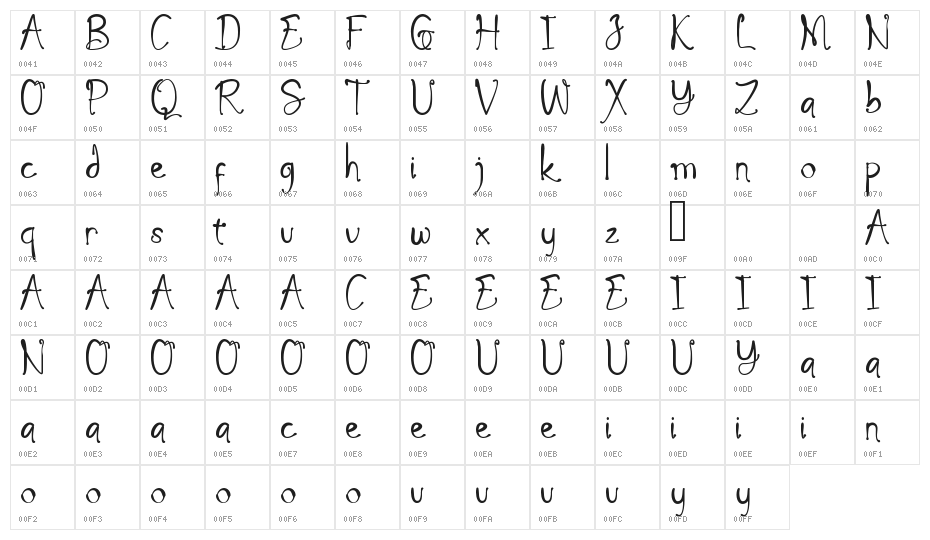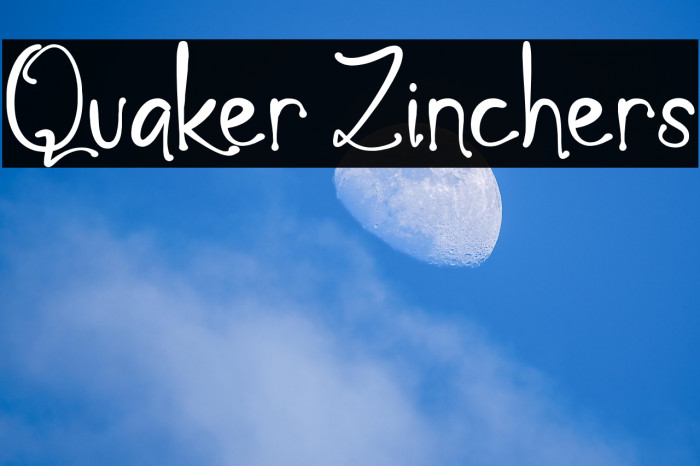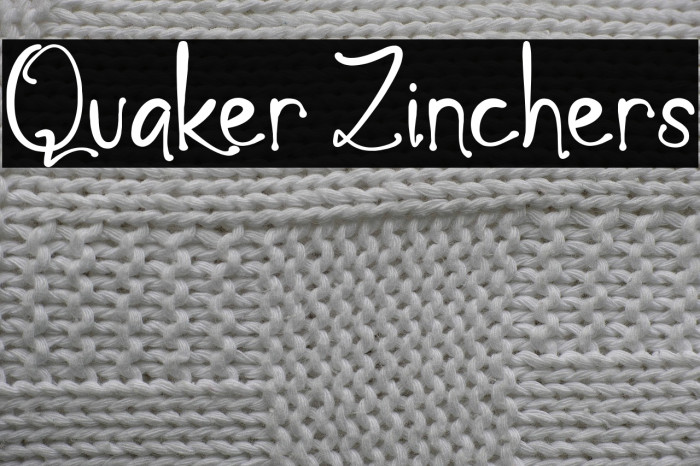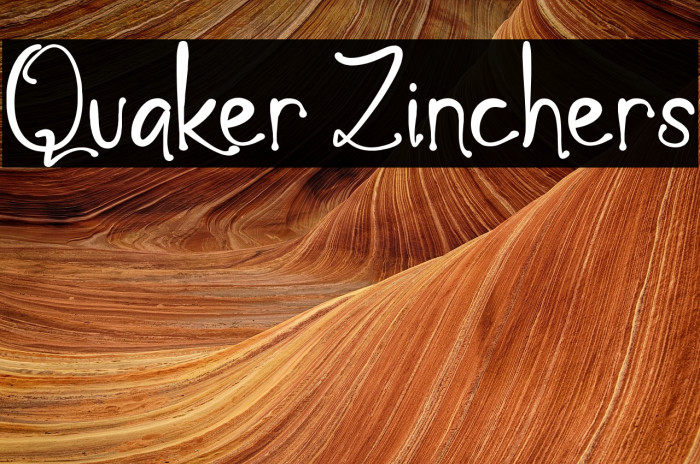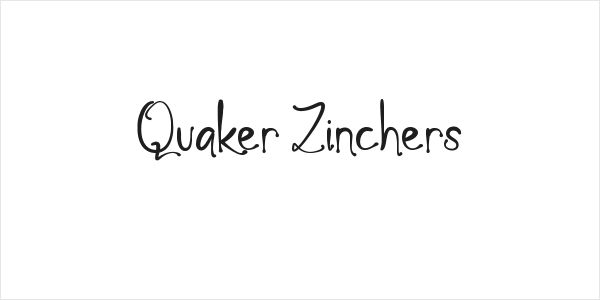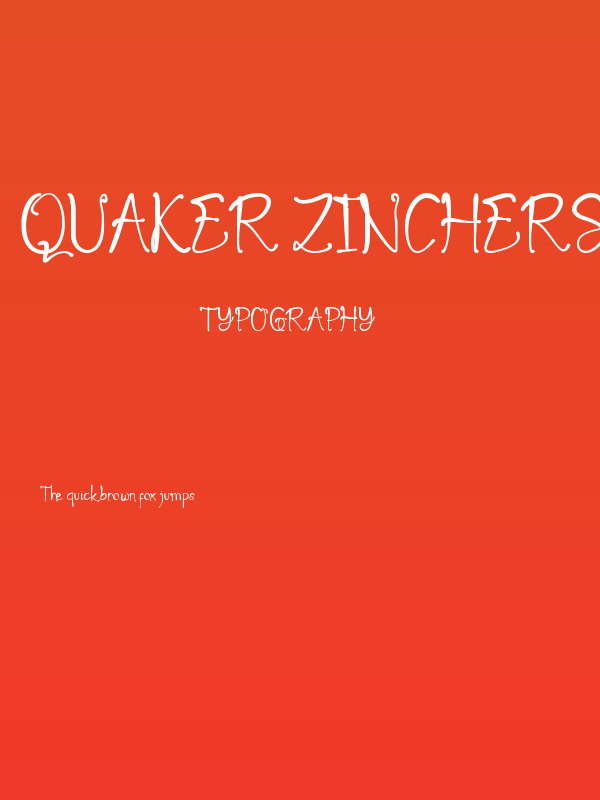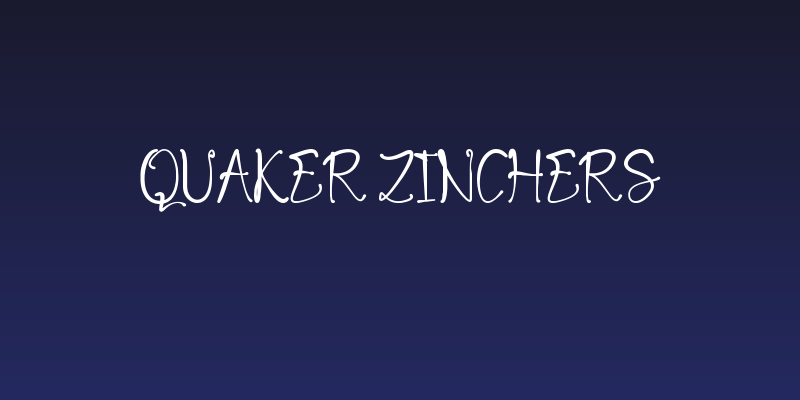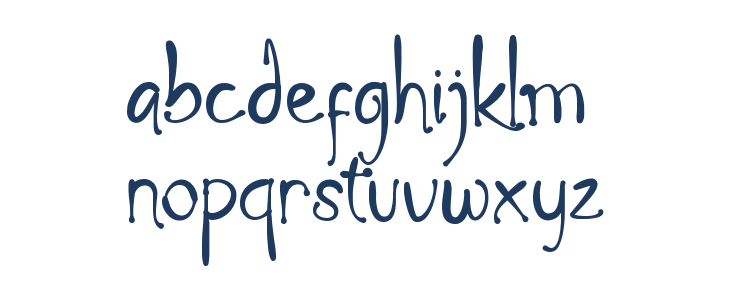
Quaker Zinchers Font
Quaker Zinchers Description
This font features a whimsical and playful design, characterized by its curly and looping strokes. The uppercase letters are tall and slender, with distinct flourishes that add a touch of elegance and creativity. The lowercase letters maintain a consistent style, with rounded forms and exaggerated loops that give the font a lively and dynamic appearance. The numbers and special characters follow the same playful theme, making the font suitable for projects that require a fun and engaging aesthetic. The overall design is both unique and versatile, making it ideal for a variety of creative applications.
| Proposed Projects | Ideal for children's books, playful branding, greeting cards, and creative posters. |